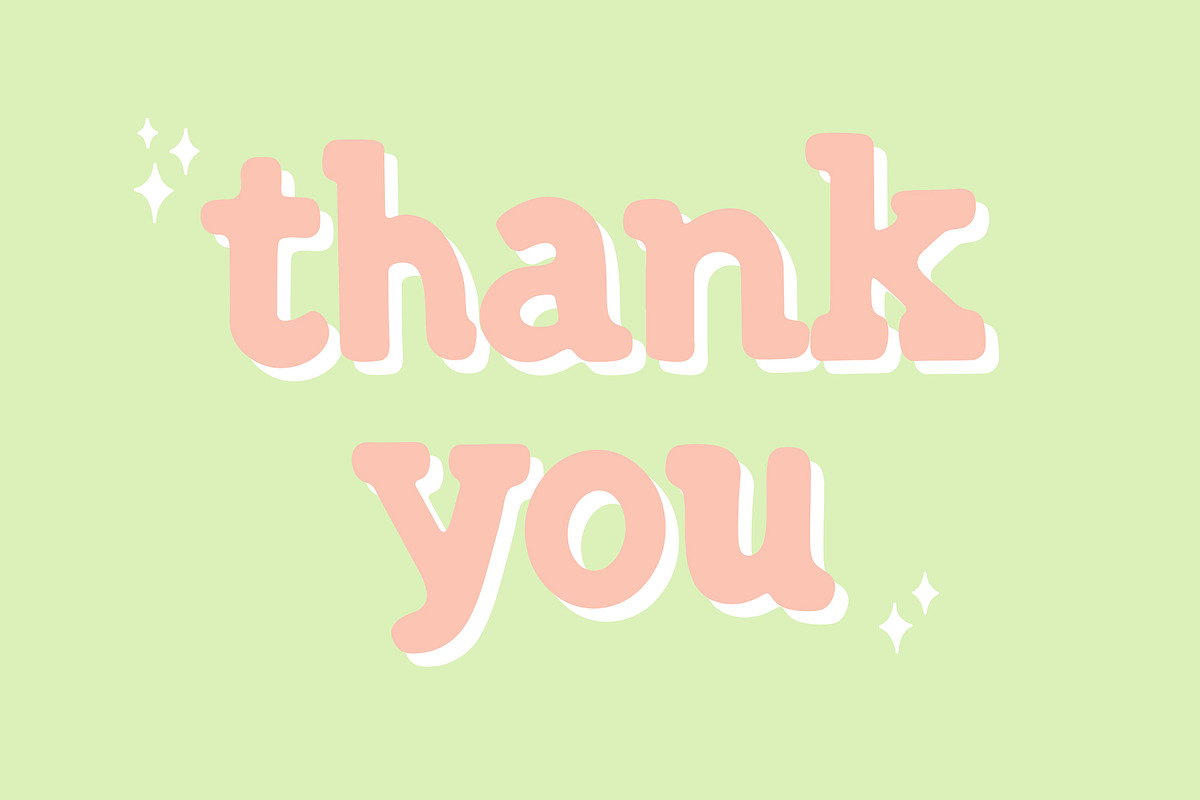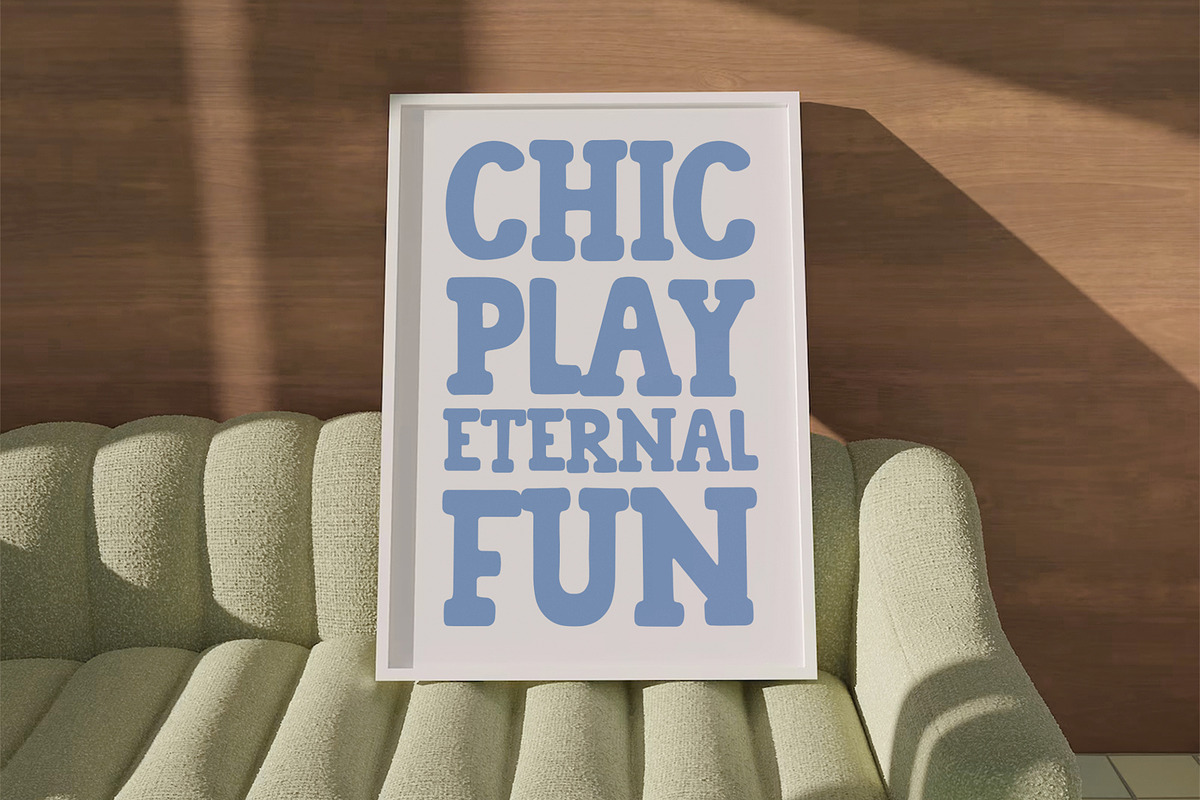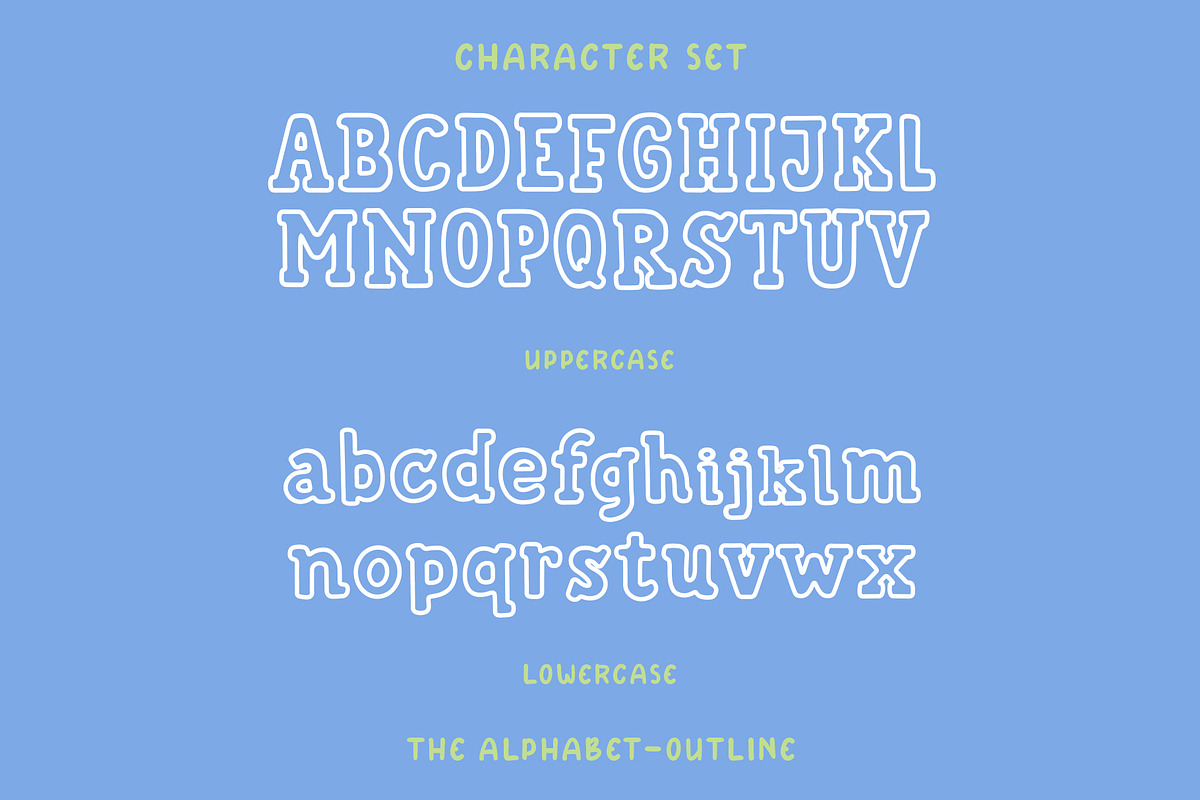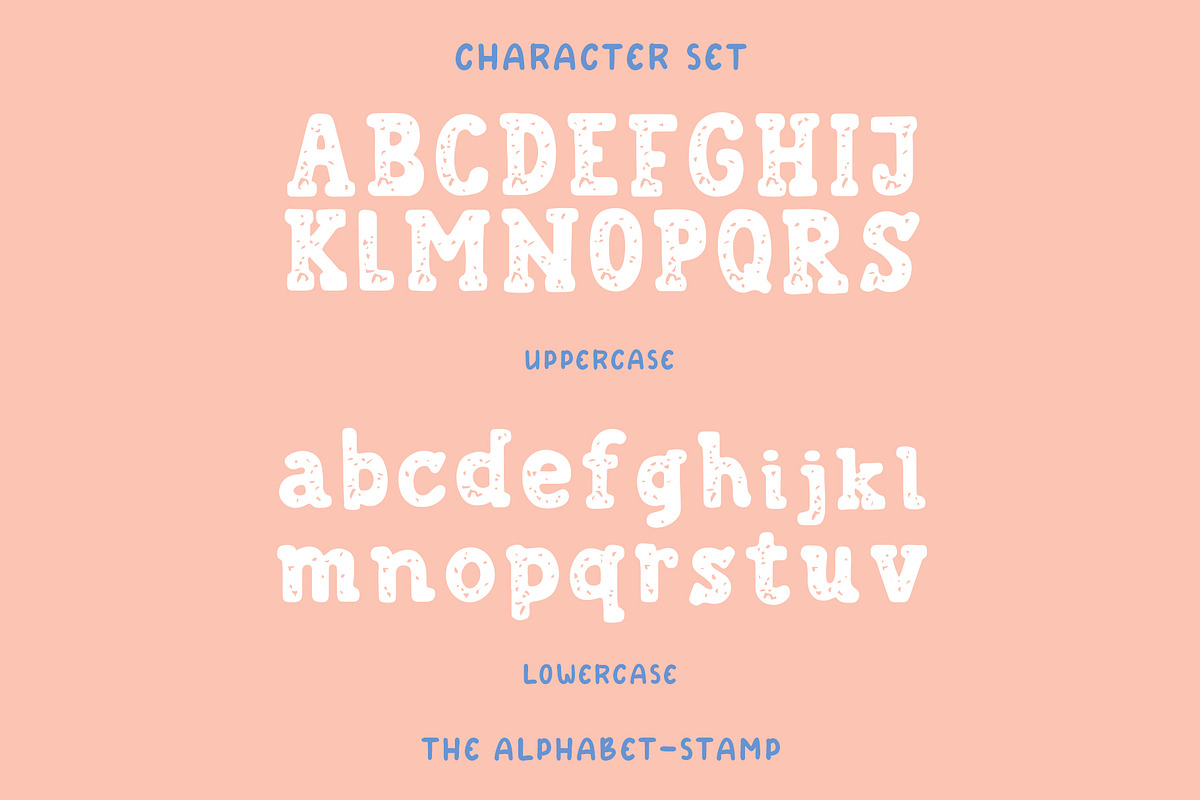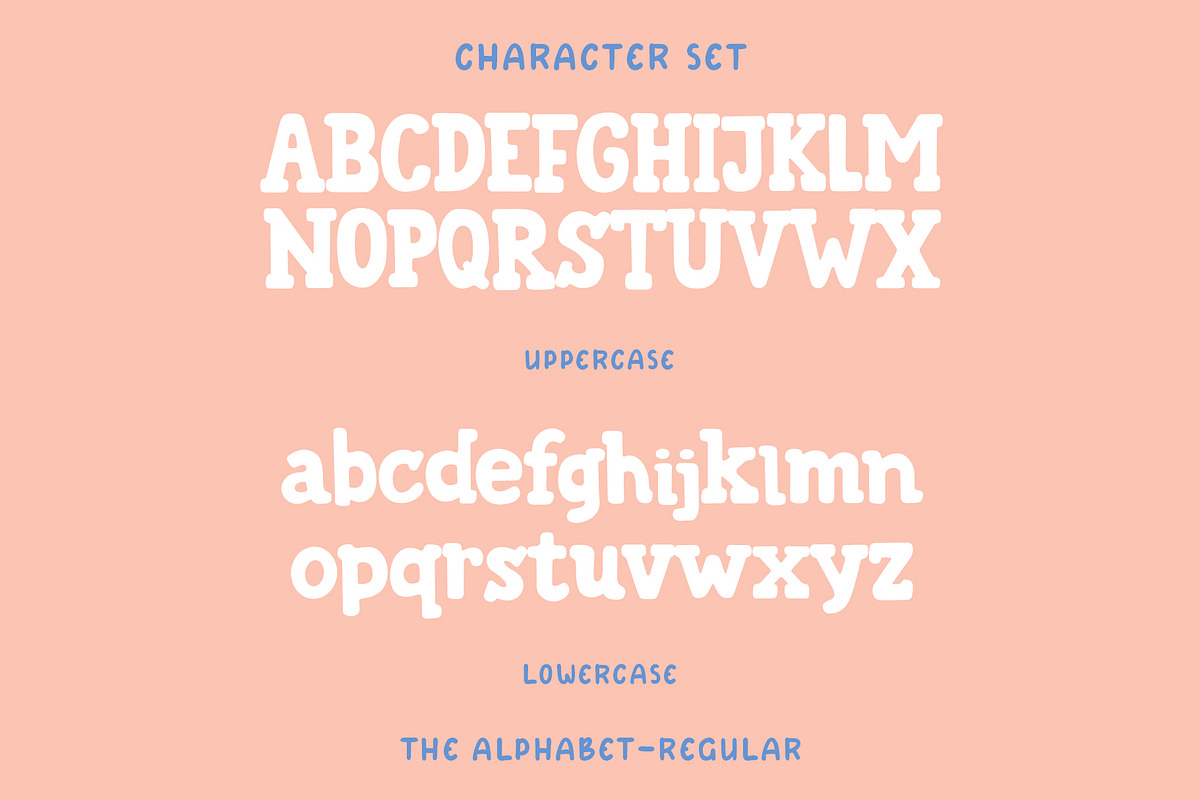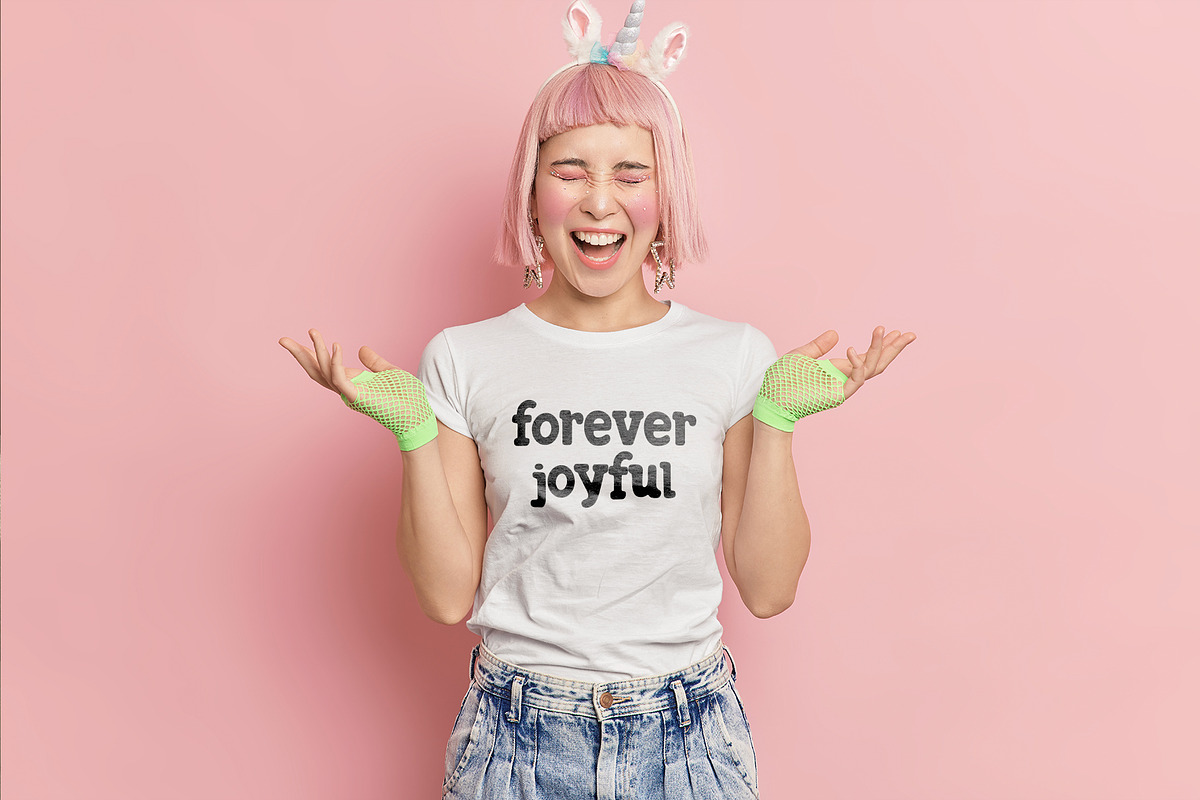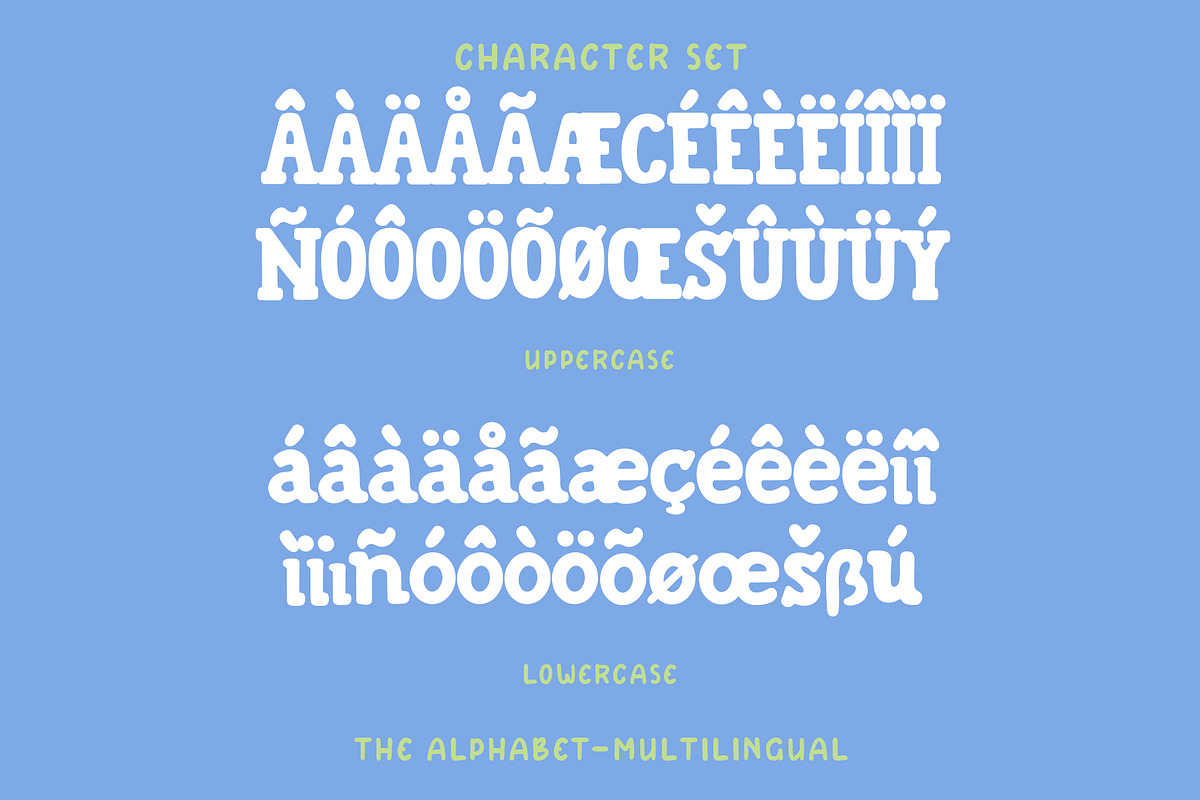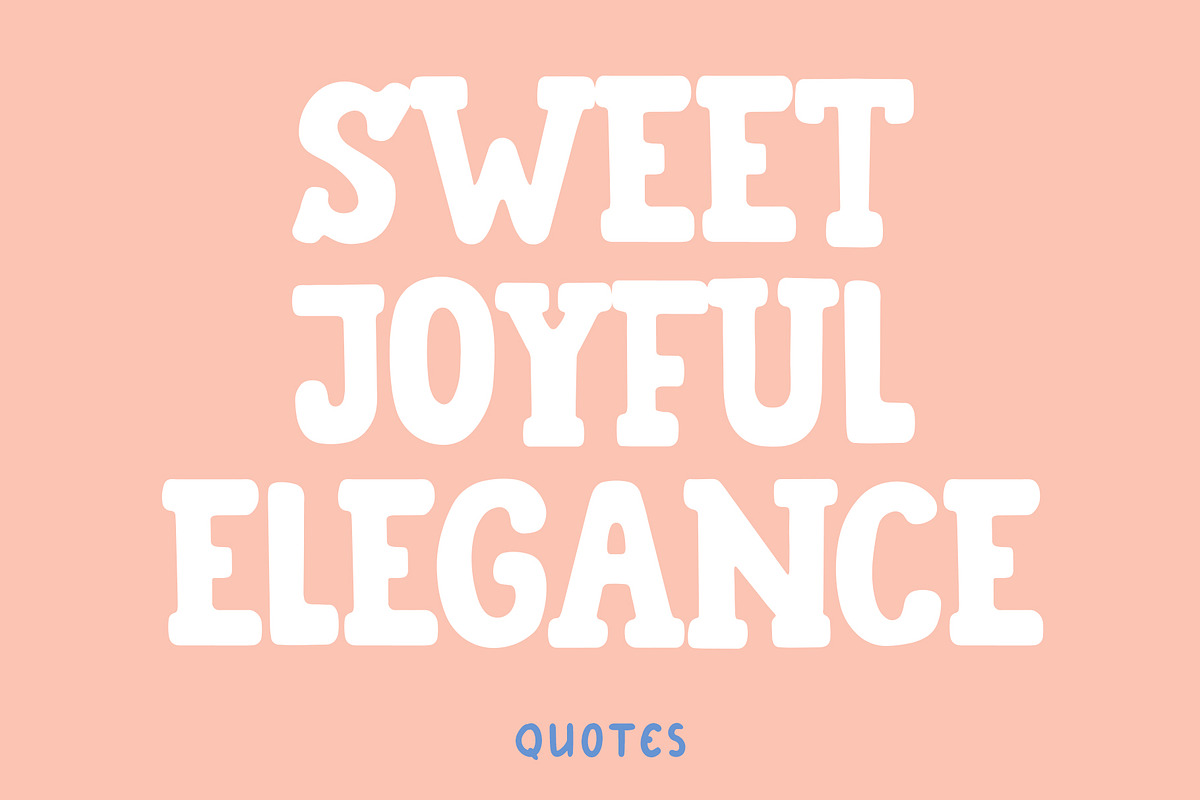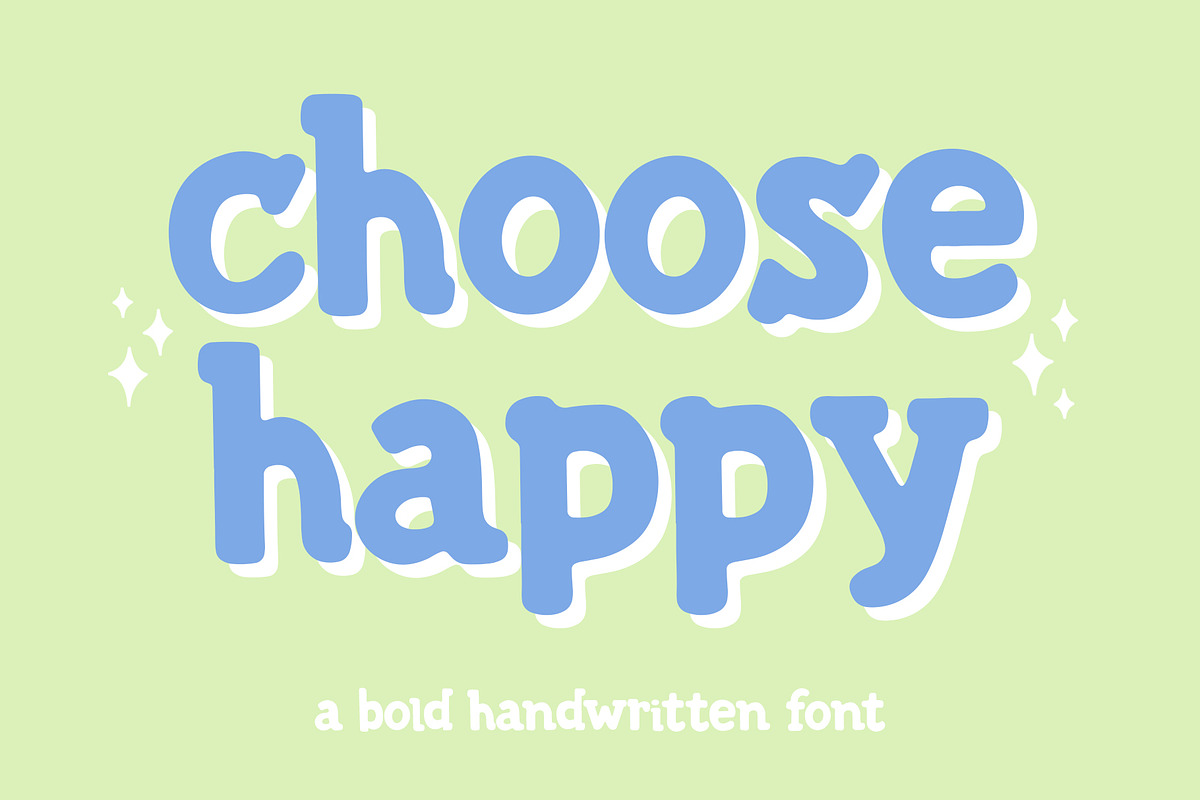
Choose Happy - Bold Handwritten Font
Choose Happy is a captivating Serif Font Bold Style that effortlessly blends sophistication with a playful spirit. This typeface available in SVG format, compatible with advanced tools such as Cricut and Glowforge, and for use in Procreate. Its bold strokes and refined serifs exude a sense of timeless elegance, making it ideal for projects that demand a touch of classic charm. The font's deliberate design choices ensure optimal readability, even in smaller sizes, while its bold style adds a touch of modernity.